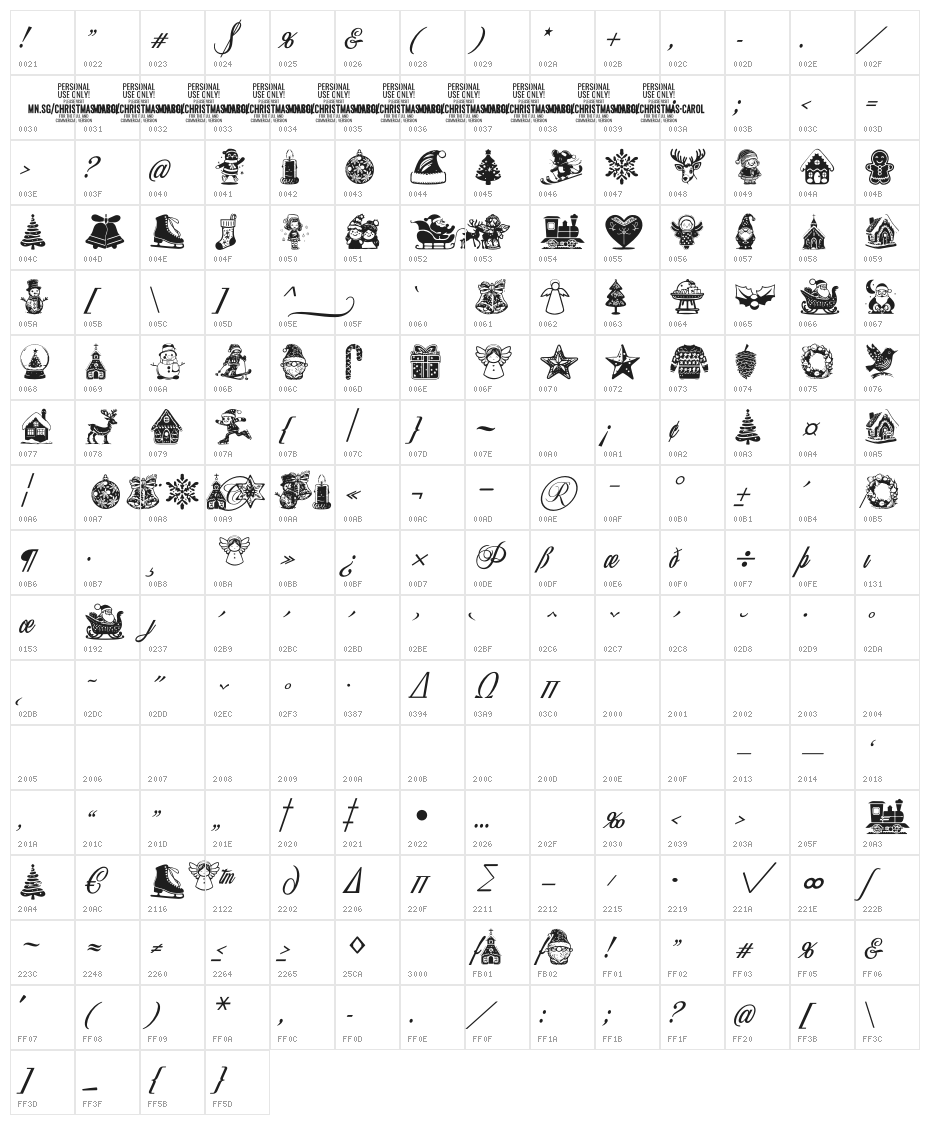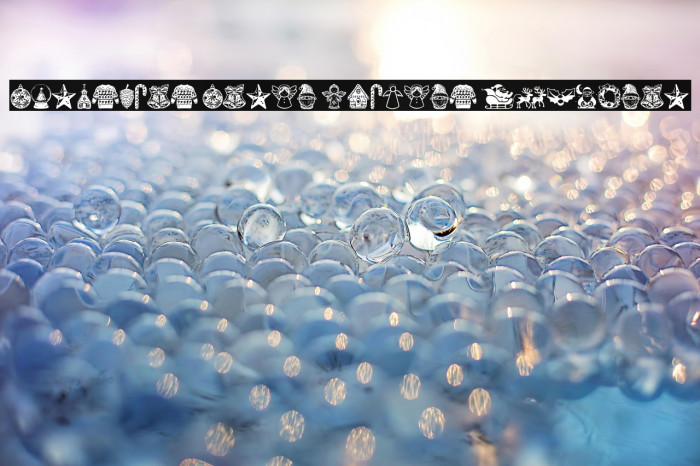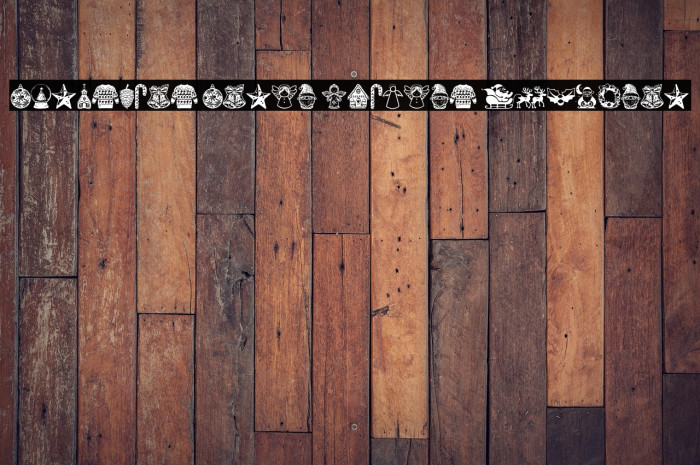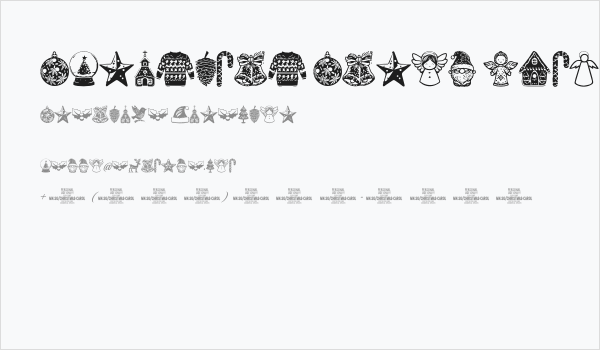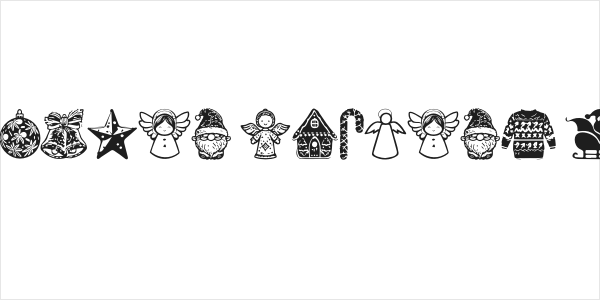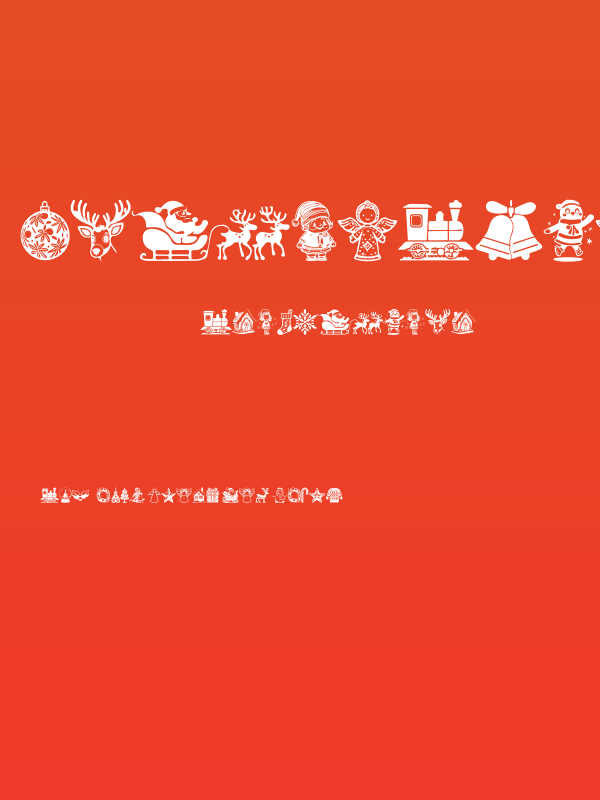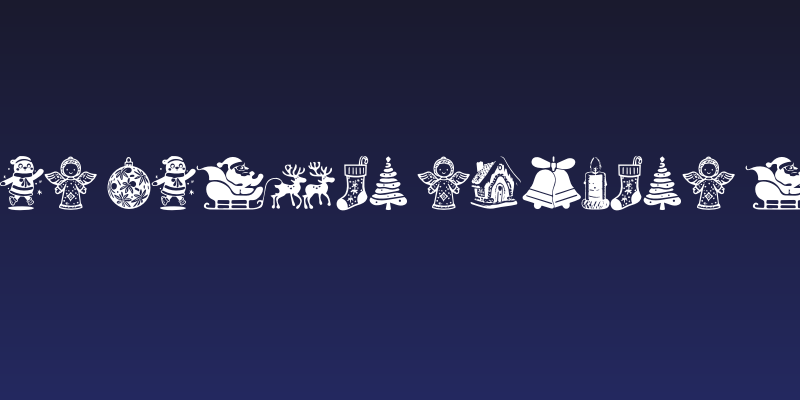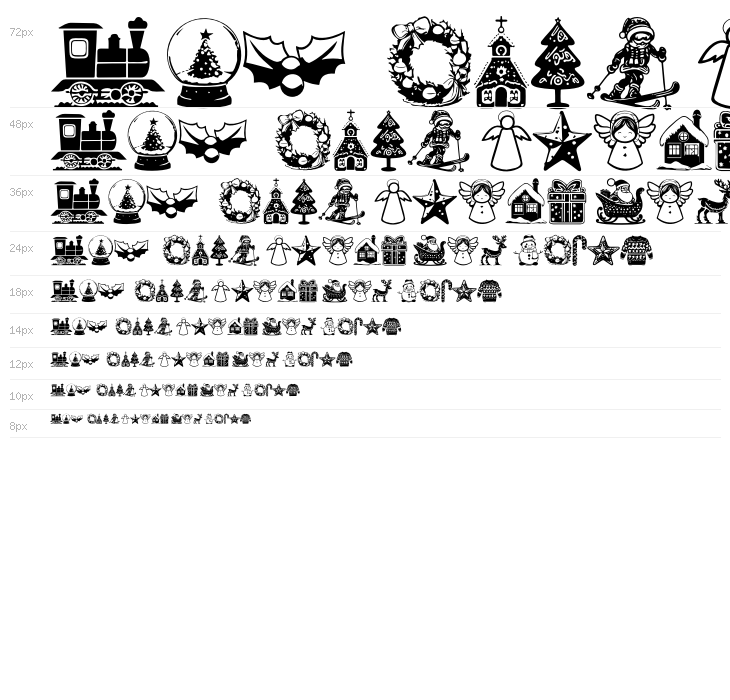
Christmas Carol Symbols Regular Font
Christmas Carol Symbols Regular Description
This decorative font captures the festive spirit of the holiday season with a collection of charming Christmas-themed symbols. Each character is a unique illustration, ranging from Santa Claus and reindeer to snowflakes and Christmas trees. The designs are intricate and detailed, making them perfect for adding a whimsical touch to holiday projects. The symbols are bold and clear, ensuring they stand out in any design. This font is ideal for creating festive greeting cards, holiday invitations, and seasonal decorations. Its playful and joyful style embodies the essence of Christmas, making it a delightful choice for any project that aims to spread holiday cheer.
| Proposed Projects | Ideal for holiday greeting cards, festive invitations, seasonal decorations, and Christmas-themed crafts. |